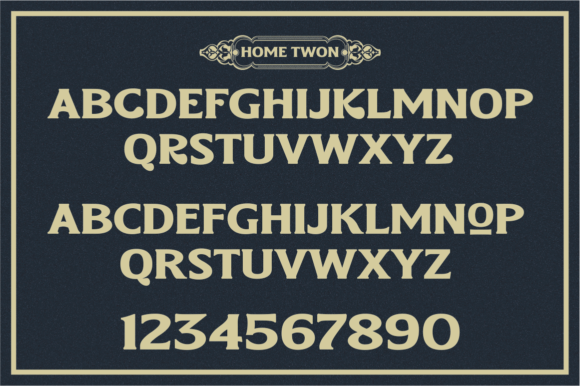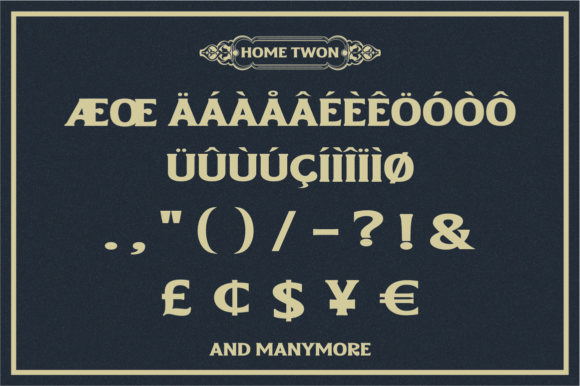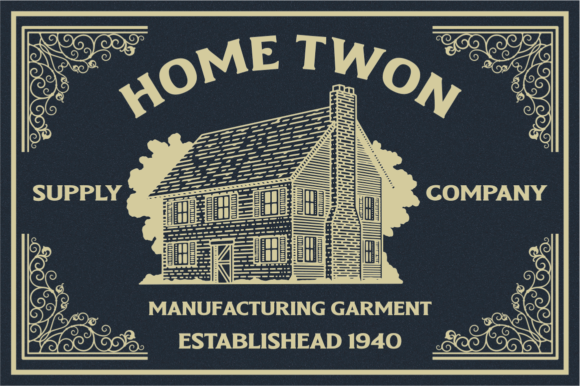
Introduction to Home Twon Font
Have you ever been in the middle of a creative project, pouring your heart and soul into a design, only to feel like something’s missing? That’s when I stumbled upon the Home Twon Font, and it was love at first sight. This bold and thick lettered serif font is a game-changer for designers like us who crave a high-quality design resource that truly makes our work stand out.
With its striking appearance, Home Twon Font is perfect for anyone looking to add some personality to their design. Whether you’re working on a logo, business card, or social media graphics, this font is sure to make your creative project shine. And the best part? It’s available for free download, complete with a transparent background, making it easy to incorporate into any design.
As designers, we’re always on the lookout for that one special element that takes our work to the next level. And trust me, Home Twon Font is that element. Its unique style and versatility make it an invaluable addition to any design arsenal, and I’m excited to share more about this amazing font with you.
Key Features of Home Twon Font
- High-quality, professional design suitable for various creative projects, including logos, posters, and brochures.
- Designed with a unique, modern aesthetic, making it an excellent resource for designers seeking a distinctive look.
- Includes a range of glyphs and characters, ensuring versatility and flexibility in various design applications.
Honest Review: Home Twon Font
As a designer, I’m always on the lookout for high-quality design resources to enhance my creative projects. Recently, I stumbled upon the Home Twon Font, and I’m excited to share my thoughts on this free download.
- ✨ Unique and modern design aesthetic that’s perfect for contemporary projects.
- ✨ Transparent background, making it easy to use on various backgrounds.
- ⚠️ Limited font variations, which might not be suitable for complex design projects.
- ⚠️ Not suitable for print projects due to the font’s digital design.
Overall, I’m impressed with the Home Twon Font. While it may have some limitations, its unique design and free download make it a valuable resource for digital design projects. I’d recommend it for designers working on creative projects that require a modern and sleek aesthetic.
Tips for Getting the Most Out of Home Twon Font
For the best results, use Home Twon Font in conjunction with a high contrast background to make the text stand out. You can also experiment with different font sizes and styles to add visual interest to your design.
Home Twon Font is ideal for a variety of creative projects, including business cards, flyers, and social media graphics. It’s also great for personal projects, such as blog posts and newsletters. With its free download and transparent background options, Home Twon Font is a versatile design resource that can be used in many different contexts.